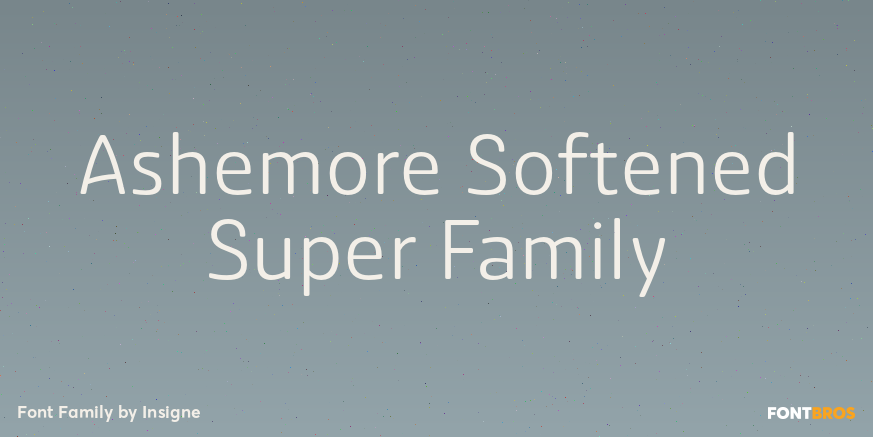
Ashemore Softened Super Family
About Ashemore Softened Super Family
Following the success of the Ashemore family, is became clear that a rounded version of Ashemore would be a great addition to the product line that would allow designers even more design choices. Ashemore Softened\’s rounder forms compliment the face well…